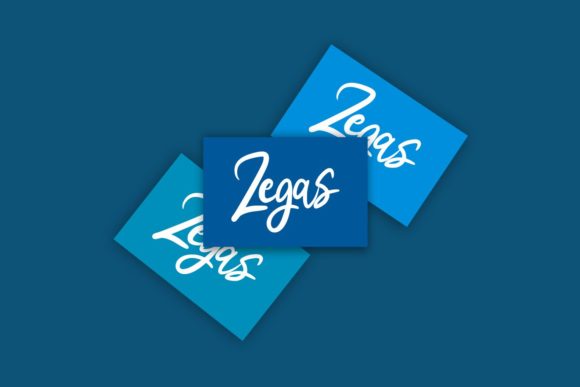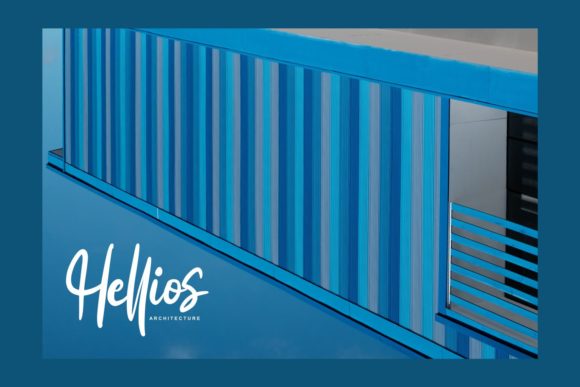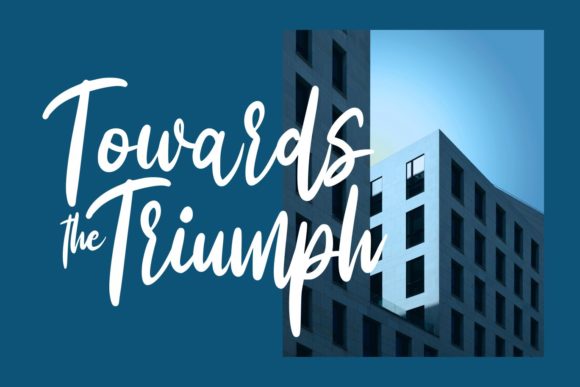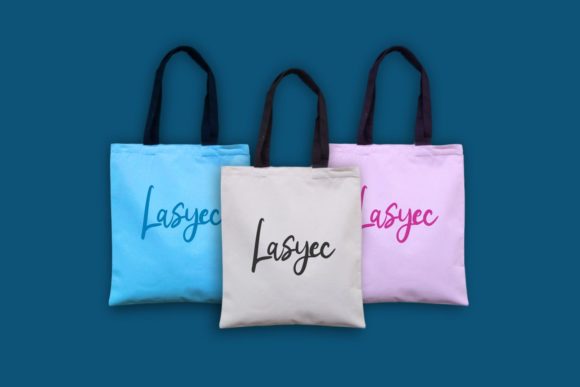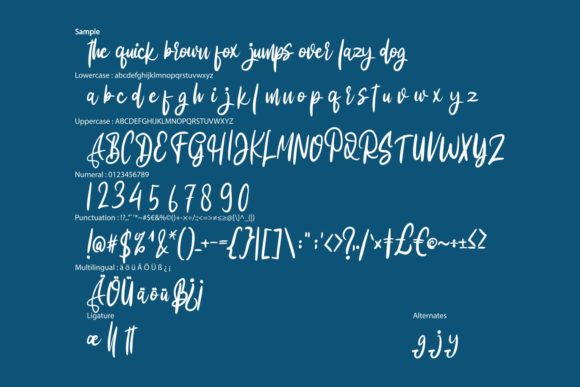
Ellies Font
About Ellies Font
Ellies is a beautiful handwritten modern script with a calligraphy style. It is perfectly suited for a wide variety of projects!